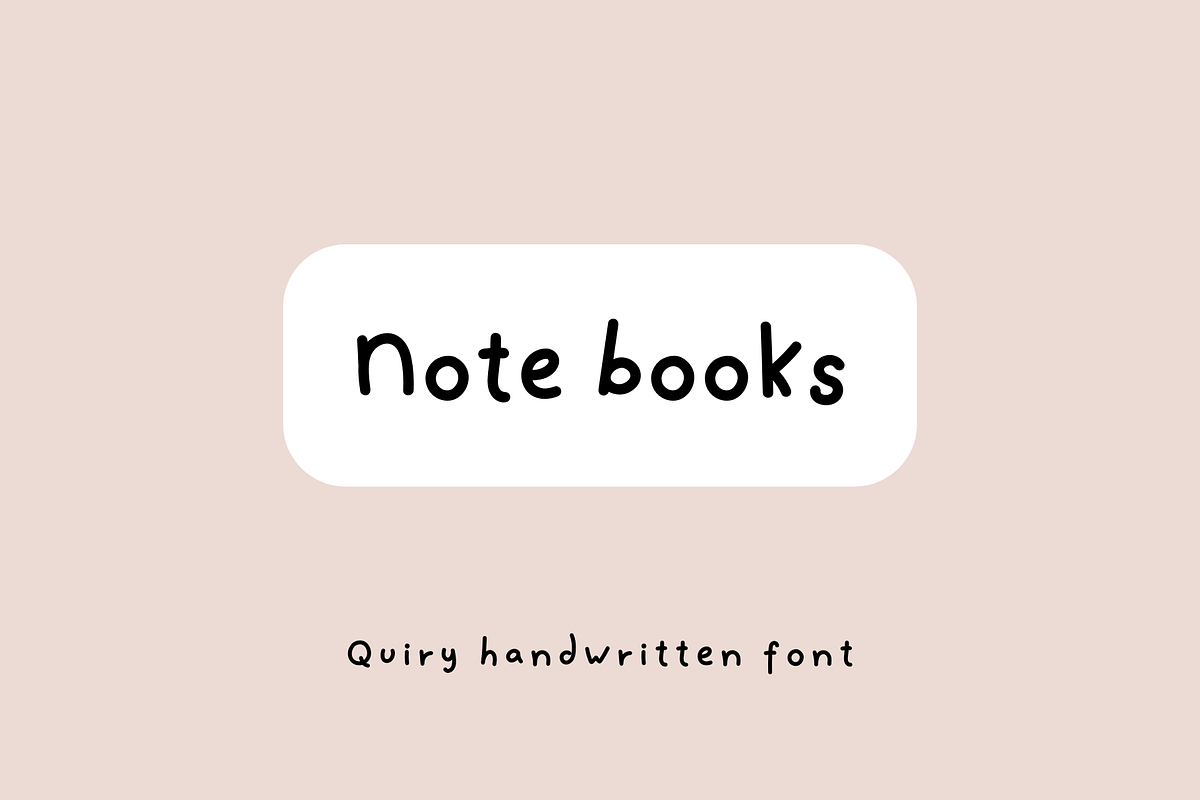
Note Books Font Free Download is a charming, handwritten-style typeface that captures the casual feel of notes scribbled in a journal or sketchbook. With its playful curves and relaxed strokes, this font is ideal for planners, school projects, DIY crafts, social media graphics, and branding that calls for a personal, friendly touch.
Its natural, slightly imperfect lettering adds authenticity and warmth, making it perfect for both kids’ designs and creative adult projects. Whether you're designing a quote card or creating digital stickers, Note Books brings personality to every letter.